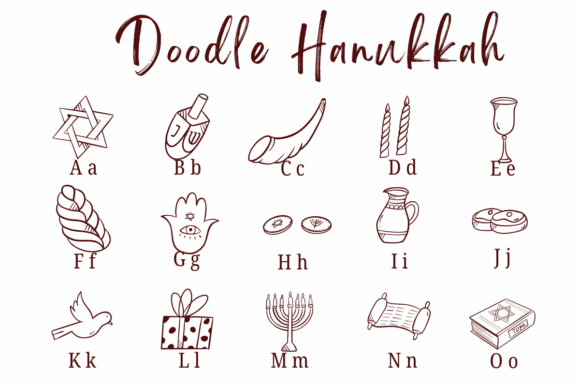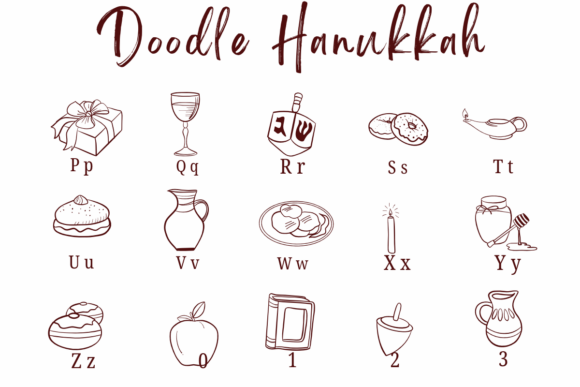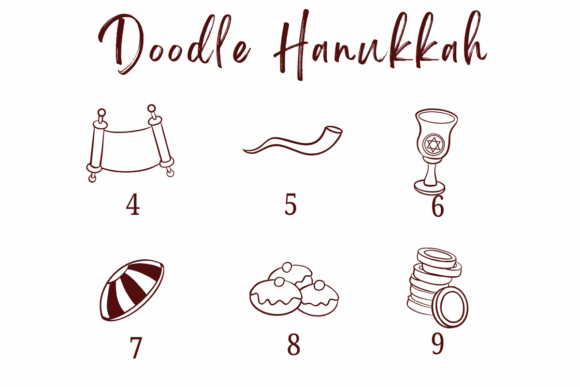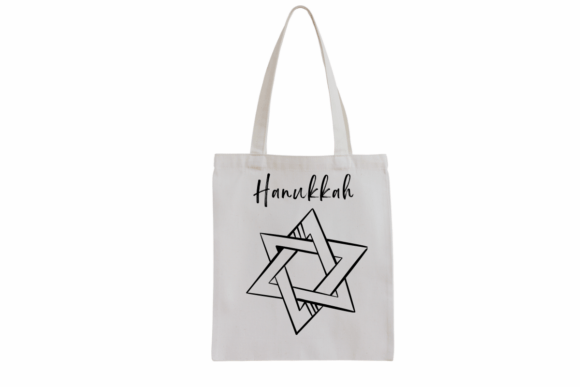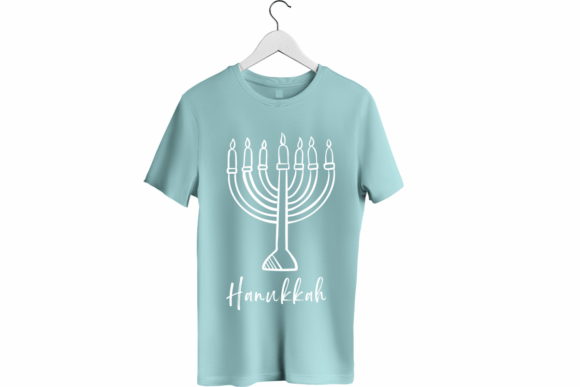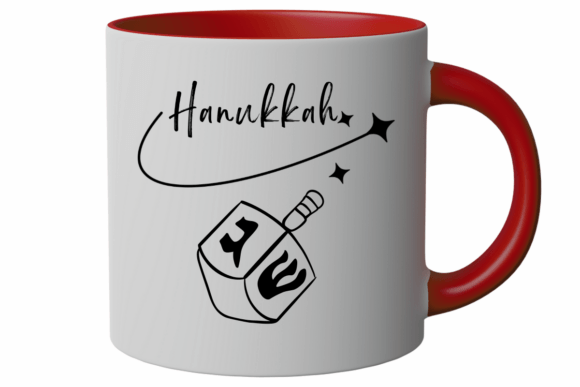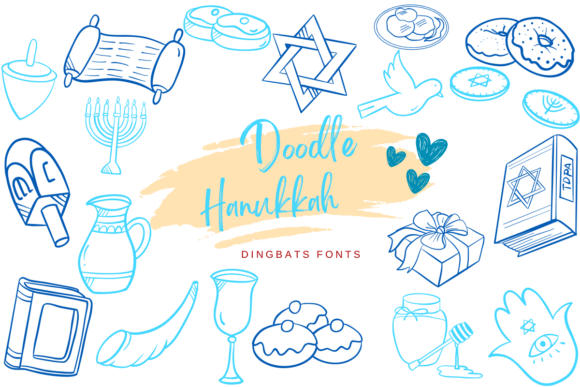
Doodle Hanukkah Font: Add a Festive Touch to Your Creative Projects
Are you looking for a unique and festive font to add a touch of Hanukkah spirit to your creative projects? Look no further than the Doodle Hanukkah Font! This dingbats font is specifically designed to bring a playful and celebratory feel to your designs, making it perfect for a variety of creative endeavors.
What is Doodle Hanukkah Font?
Doodle Hanukkah Font is a dingbats font that features a festive and playful design, perfect for the Hanukkah holiday. The font is made up of various Hanukkah-themed symbols, including menorahs, dreidels, and Stars of David, all designed in a fun and doodle-like style. This font is sure to add a touch of whimsy and celebration to any project.
Uses for Doodle Hanukkah Font
The possibilities are endless when it comes to using the Doodle Hanukkah Font in your creative projects. Here are a few ideas to get you started:
- Wedding Invitations: Add a touch of Hanukkah flair to your wedding invitations, perfect for a Hanukkah wedding or for couples who want to incorporate their heritage into their special day.
- DIY Crafts: Use the Doodle Hanukkah Font to create fun and festive DIY crafts, such as Hanukkah cards, gift tags, and decorations.
- Decorations: Create custom decorations, such as banners, garlands, and signs, to add a personal touch to your Hanukkah celebrations.
- Logos: Use the Doodle Hanukkah Font to create a unique and festive logo for your business or organization, perfect for Hanukkah-themed promotions or events.
- Social Media Graphics: Add a touch of Hanukkah spirit to your social media graphics, such as Facebook posts, Twitter headers, and Instagram stories.
Benefits of Using Doodle Hanukkah Font
There are many benefits to using the Doodle Hanukkah Font in your creative projects. Here are a few:
- Unique and Festive: The Doodle Hanukkah Font is a unique and festive way to add a touch of Hanukkah spirit to your designs.
- Scalable: The font is scalable, making it perfect for use in a variety of projects, from small crafts to large banners.
- High-Quality: The font is high-quality and designed to look great in both digital and print formats.
Tips for Using Doodle Hanukkah Font
Here are a few tips for using the Doodle Hanukkah Font in your creative projects:
- Experiment with Different Sizes: Experiment with different font sizes to find the perfect size for your project.
- Combine with Other Fonts: Combine the Doodle Hanukkah Font with other fonts to create a unique and interesting design.
- Use in Combination with Images: Use the font in combination with images, such as photos or illustrations, to add an extra layer of interest to your design.
The Doodle Hanukkah Font is a fun and festive way to add a touch of Hanukkah spirit to your creative projects. With its unique and playful design, this font is perfect for a variety of uses, from wedding invitations to DIY crafts. Whether you’re a designer, crafter, or simply someone who loves the Hanukkah holiday, the Doodle Hanukkah Font is sure to be a great addition to your creative toolkit.